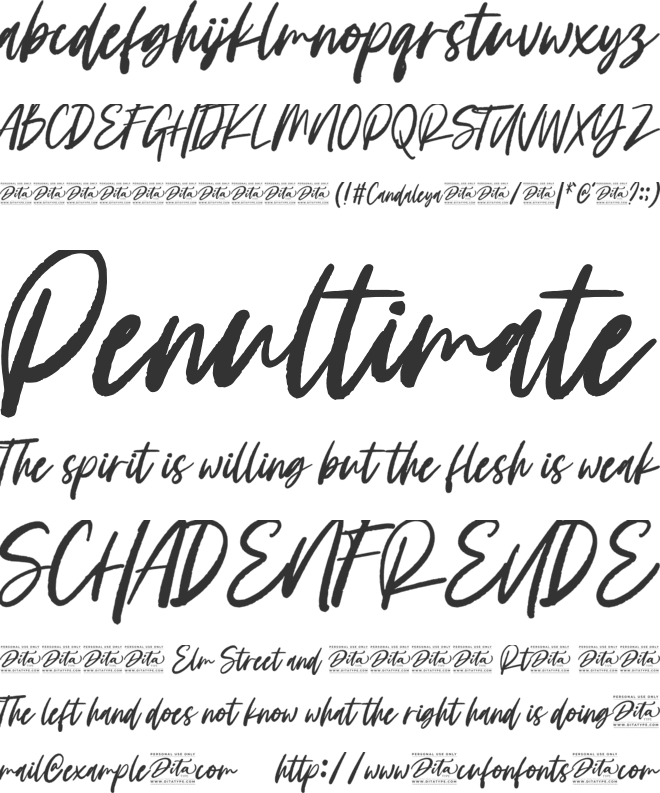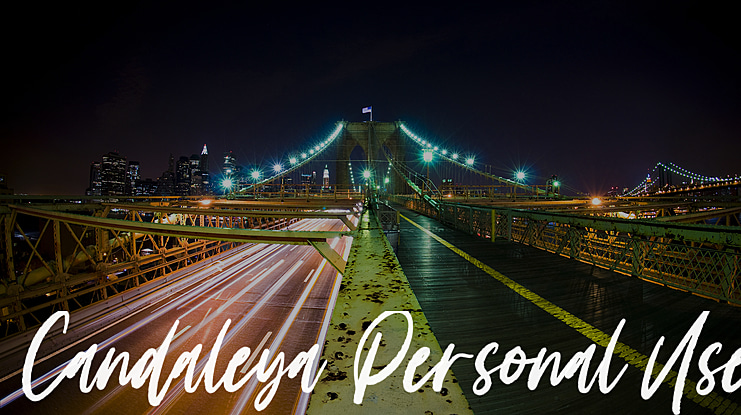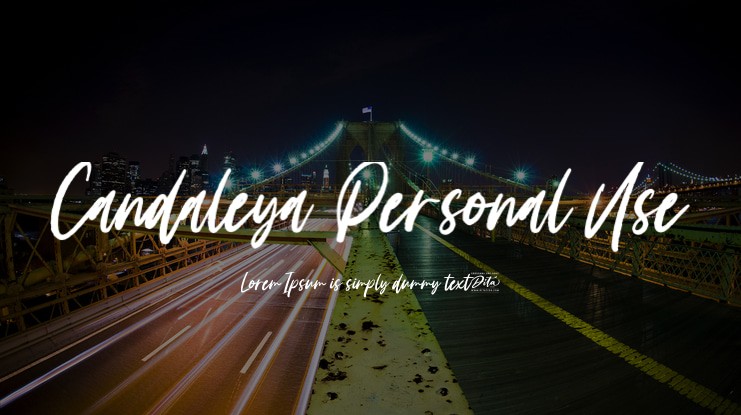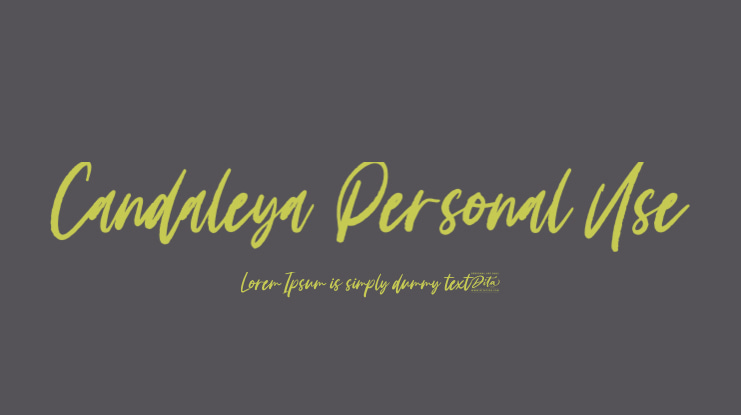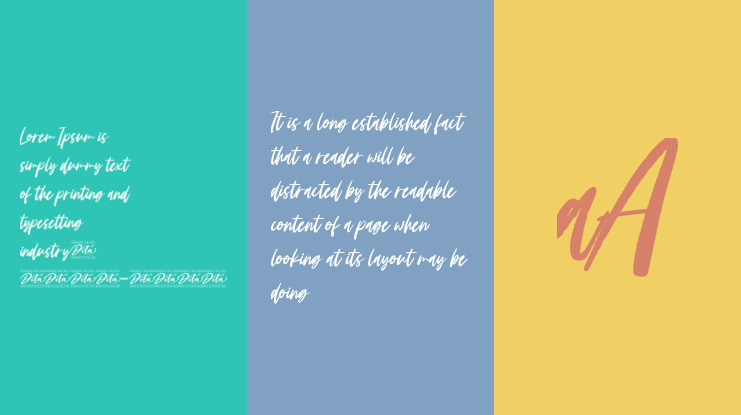
Candaleya is a modern handwritten font. With a classy and natural handwritten style, it brings a classy and chic typeface. Candaleya is best used for weddings, branding, logotype, and quotes.